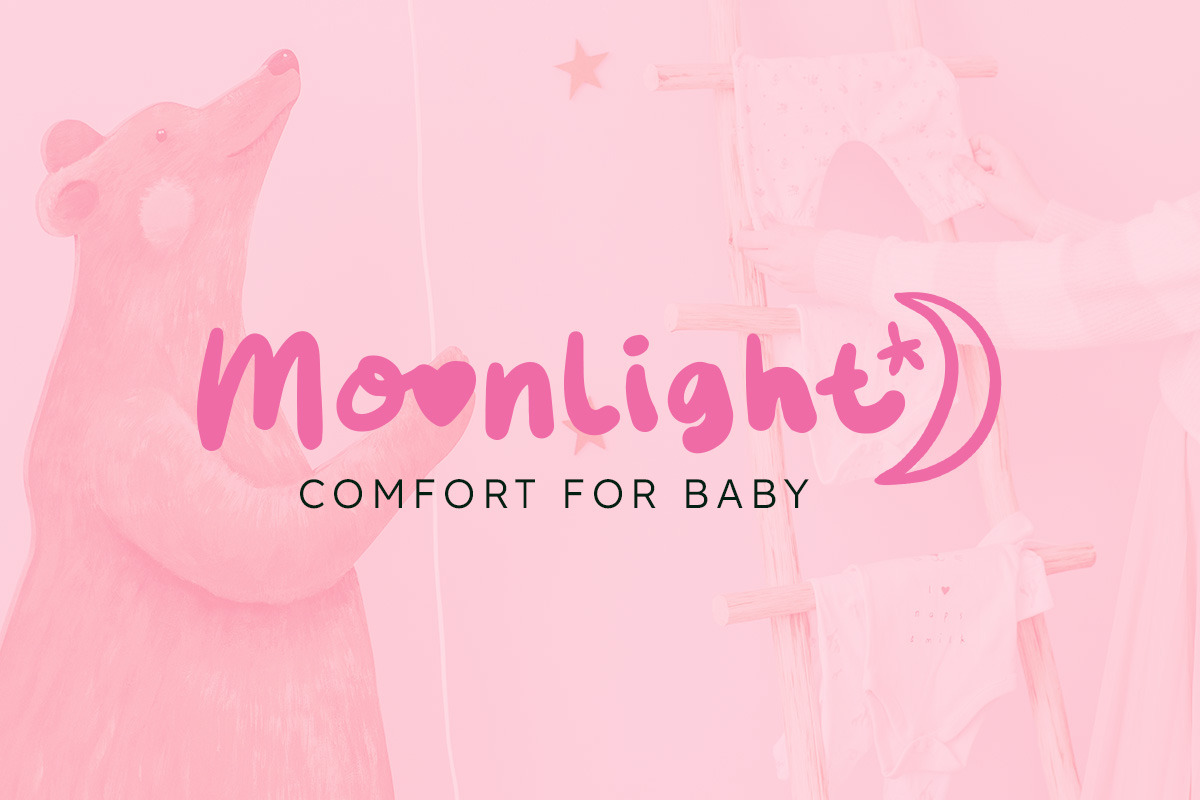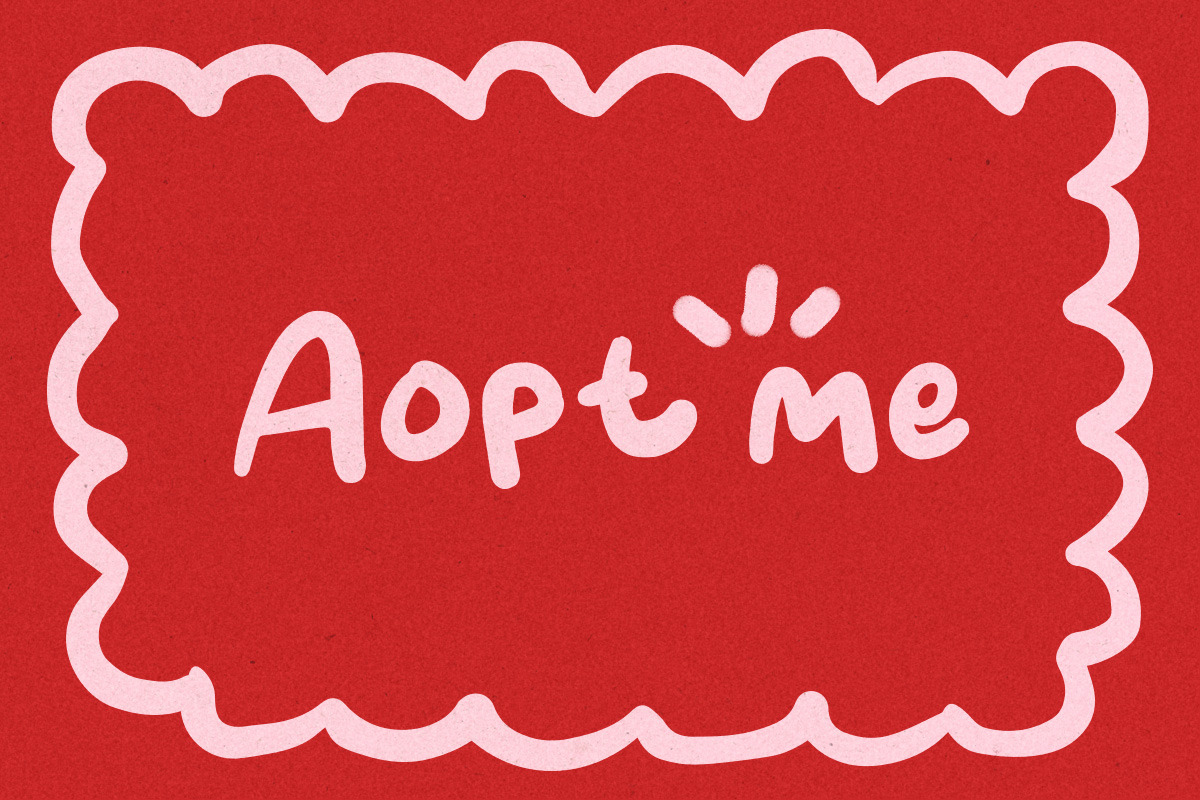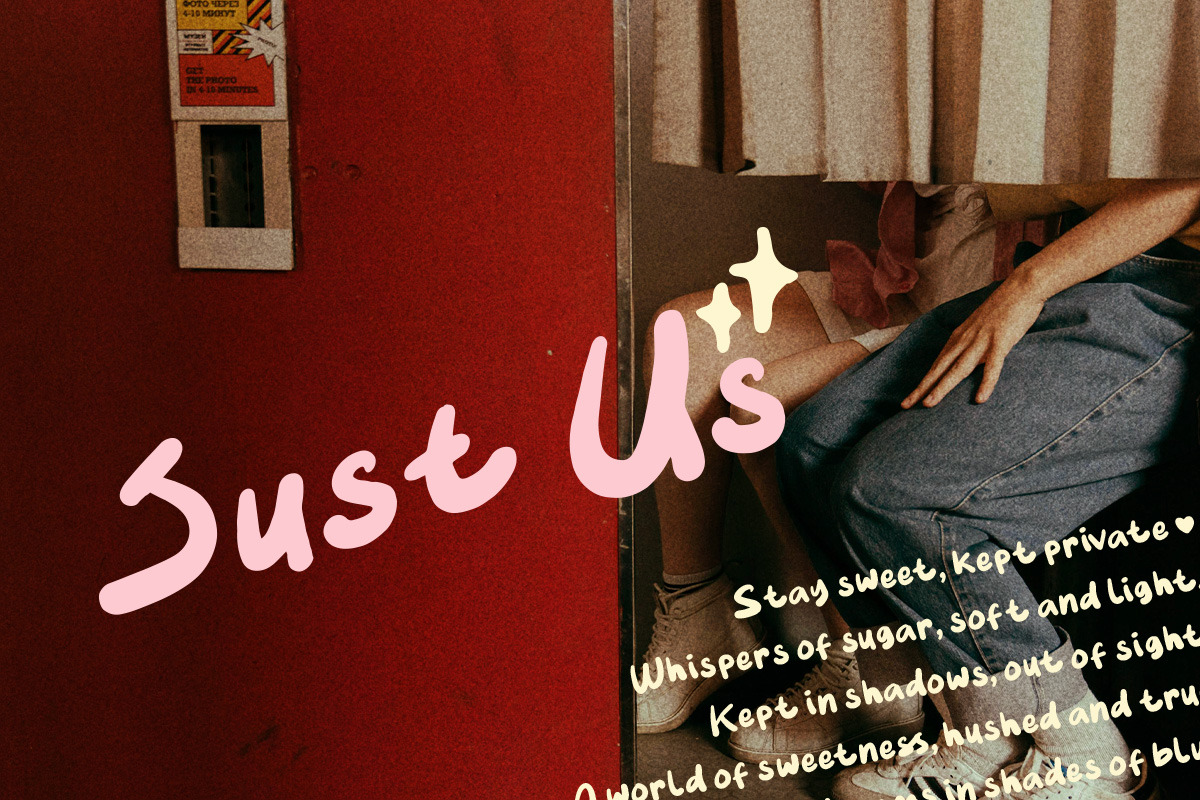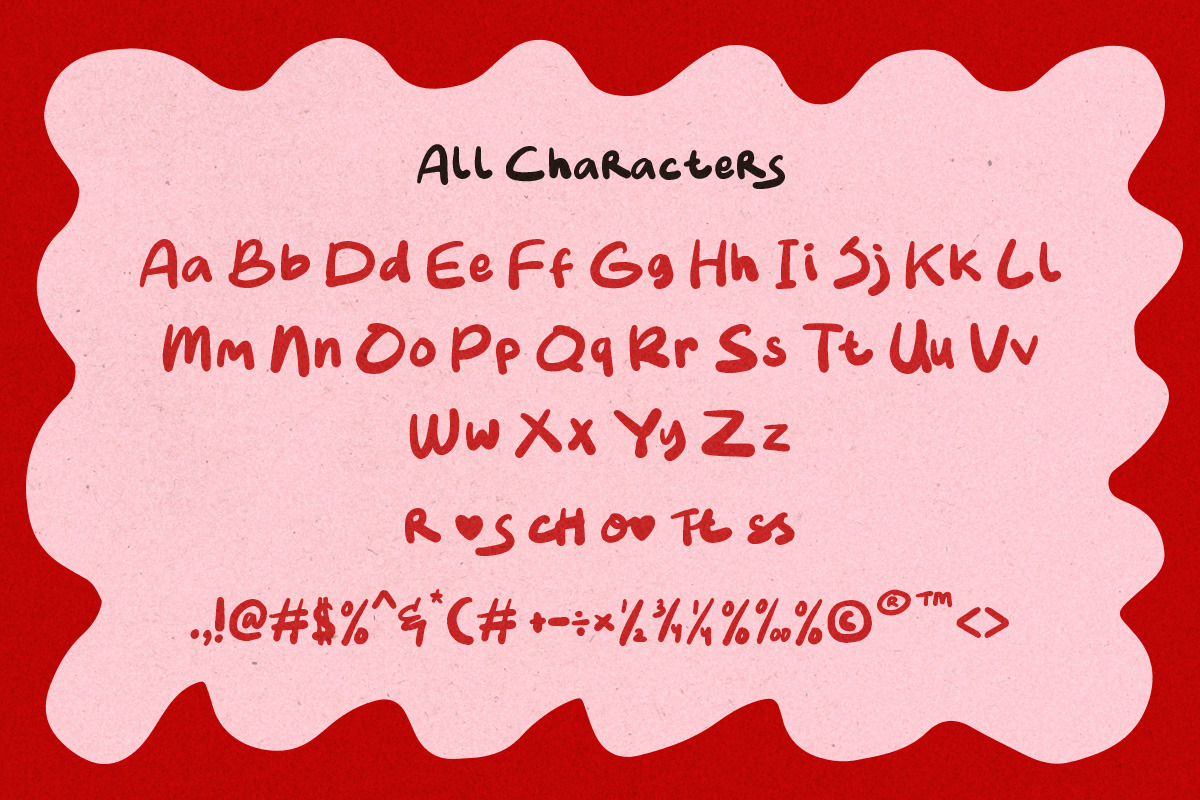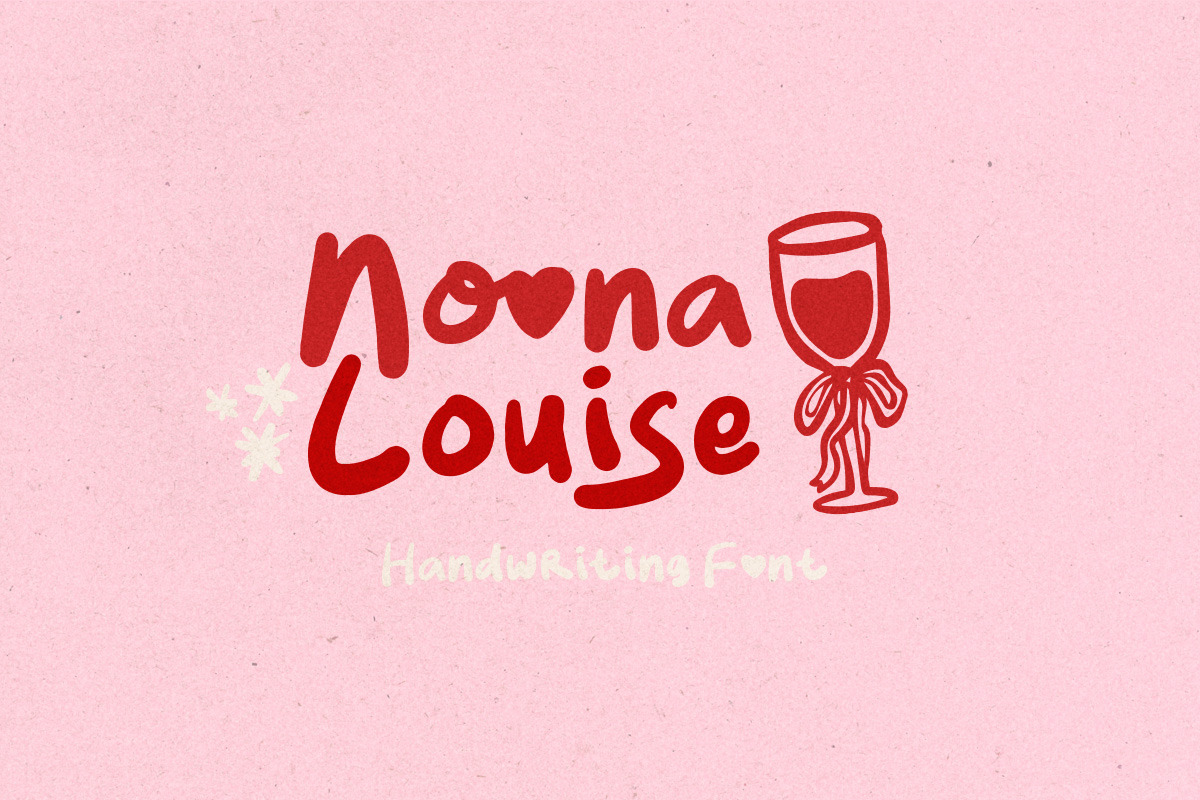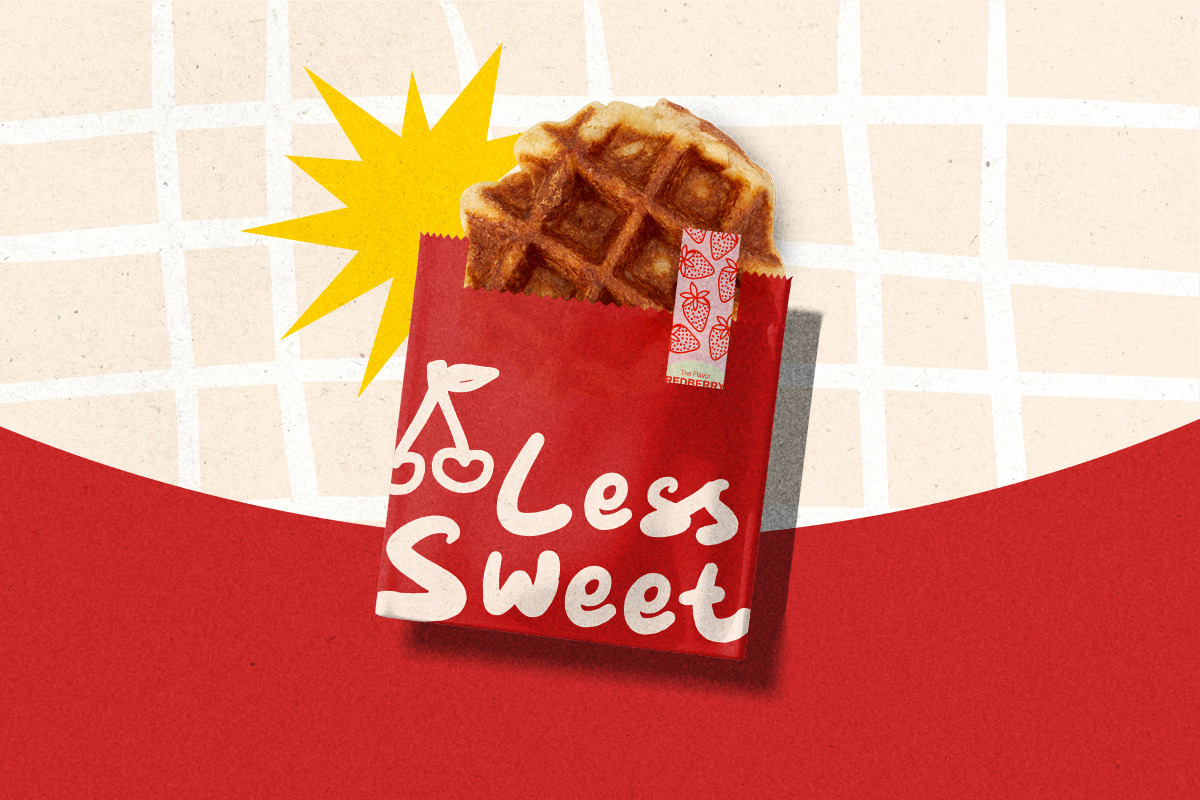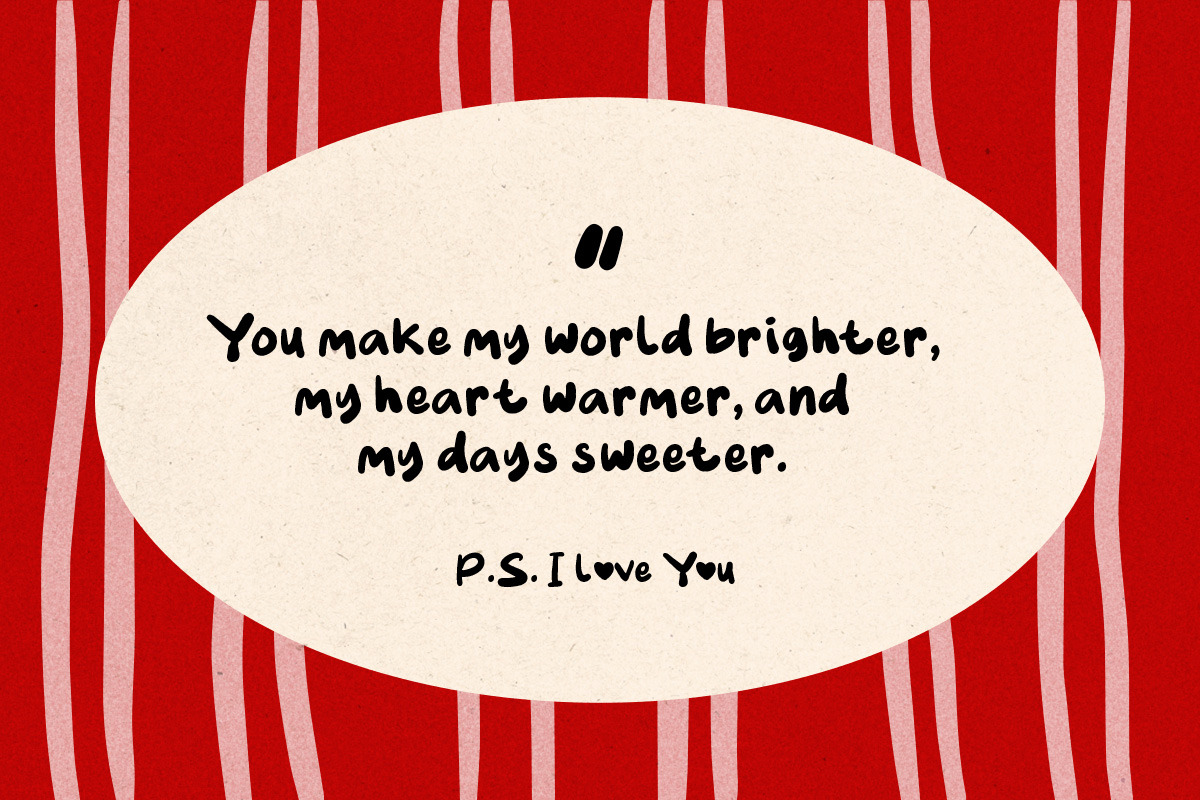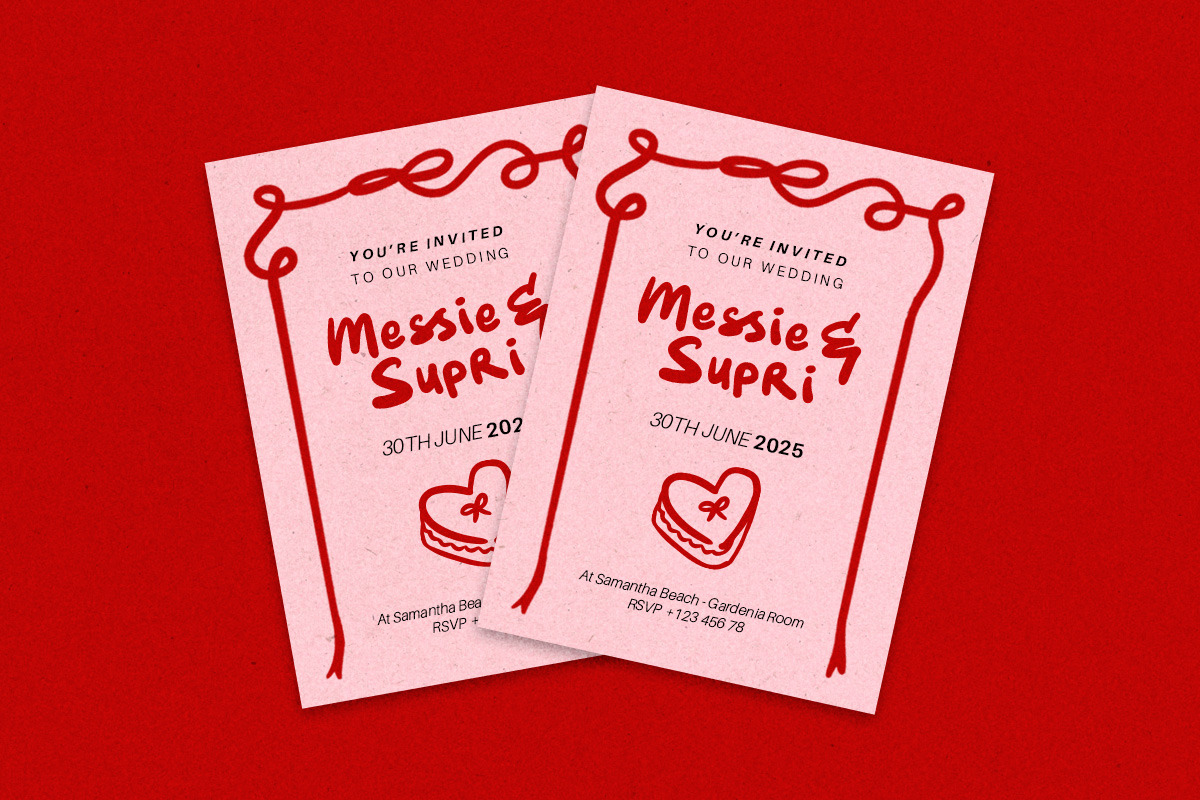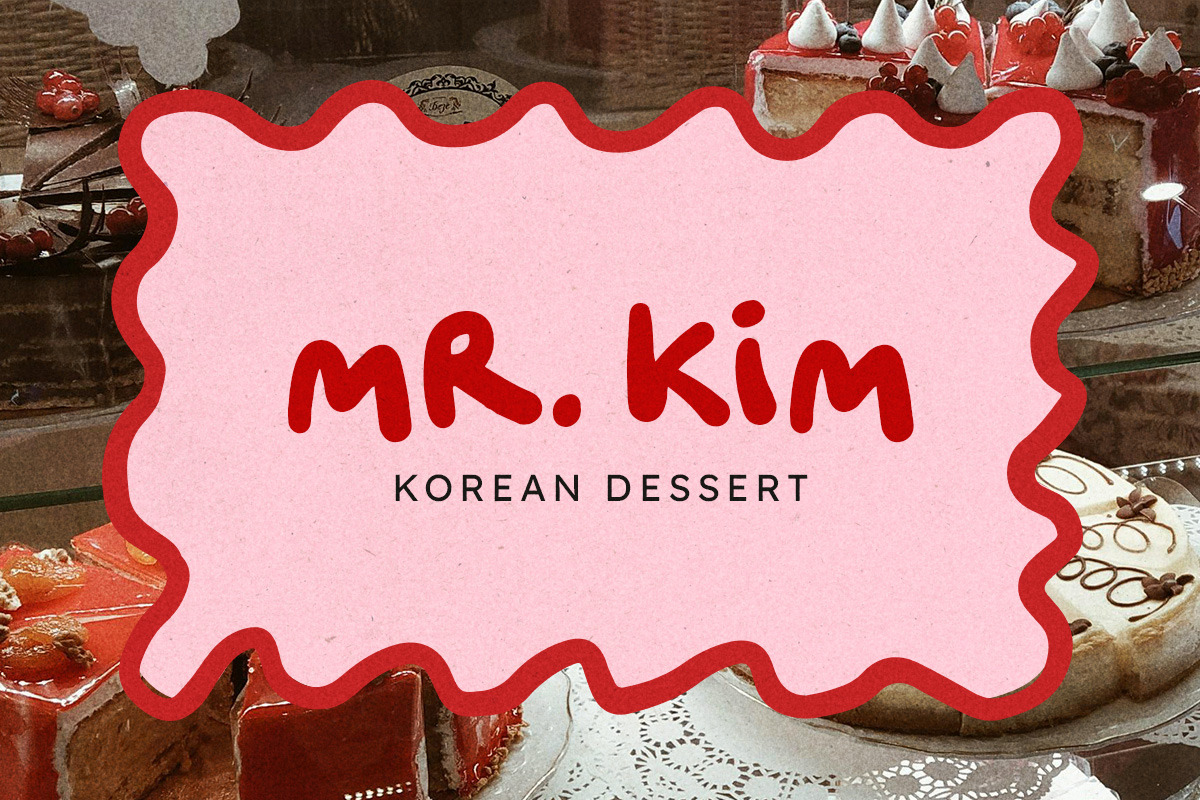
Noona Louise is that effortlessly cool, slightly romantic handwritten font that gives your designs major aesthetic vibes. It’s got that natural, hand-drawn feel—kinda like a love note or a cute café chalkboard. The smooth curves and playful strokes make it look personal, stylish, and just the right amount of quirky.
This font is perfect for anything that needs a soft but confident touch—think branding, wedding invites, IG posts, or even a dreamy journal entry. Pair it with warm colors, cozy textures, and a little sparkle, and boom—instant magic. ✨🍷